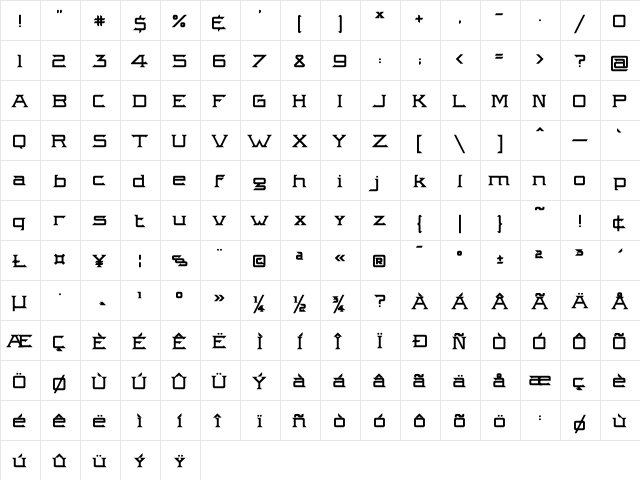
Intergalactik Airlines Regular
Design Context for Intergalactik Airlines Typeface
Intergalactik Airlines offers clean, dependable letterforms without strong stylistic allegiance, making it a practical choice for designers who need flexibility.
Pro Tip: Use Intergalactik Airlines in both headline and body roles to test its range before committing to a single application.